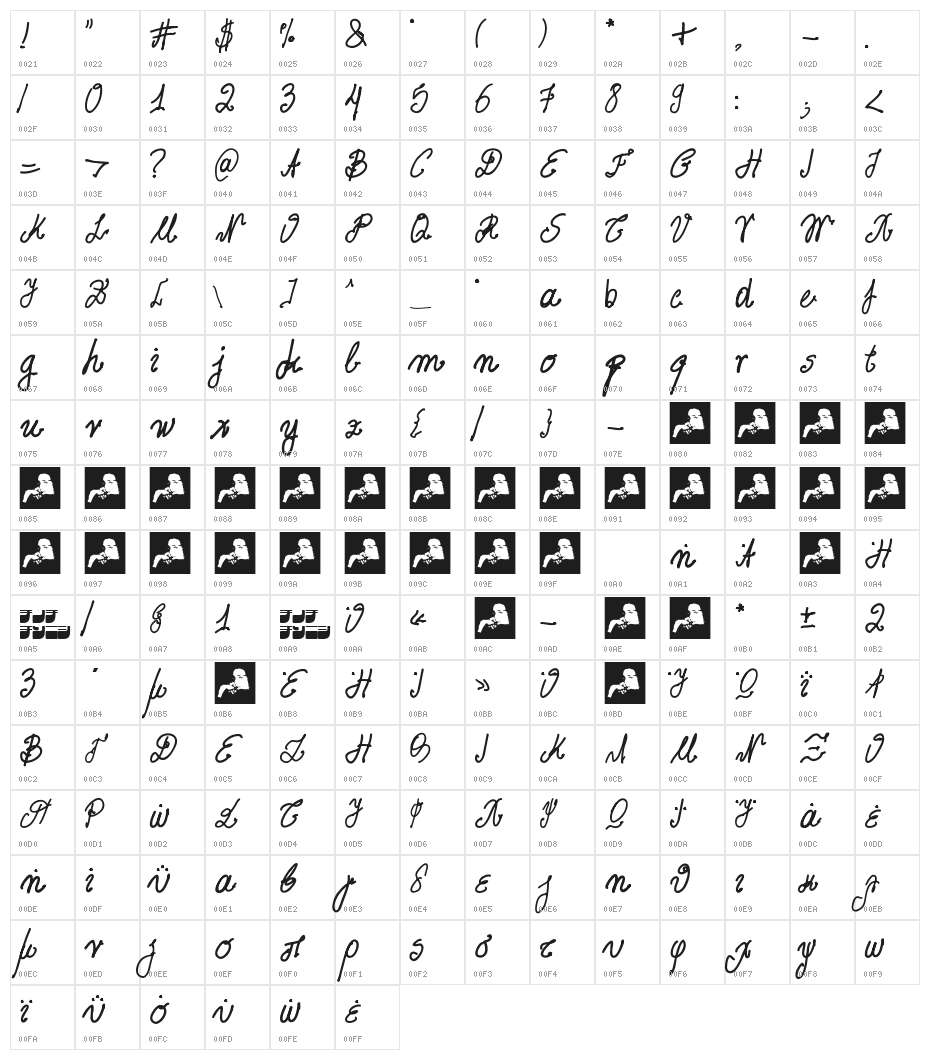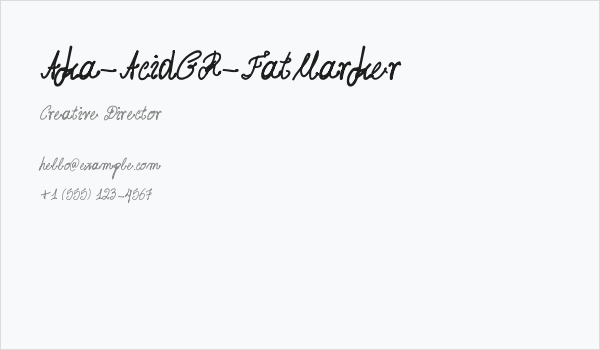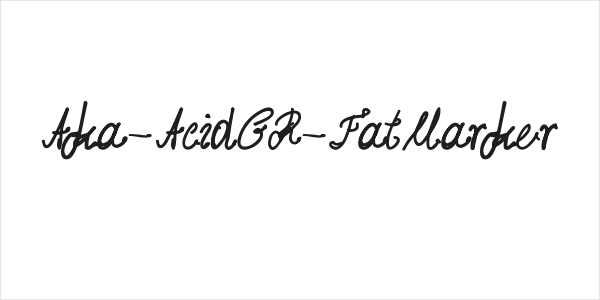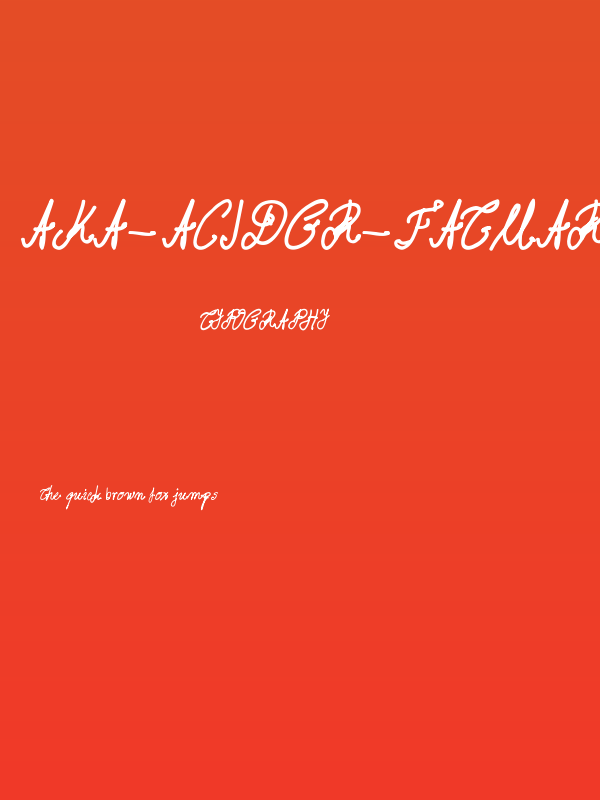
Aka-AcidGR-FatMarker Font
Aka-AcidGR-FatMarker Description
This font features a bold, cursive style with a playful and dynamic appearance. The letters are interconnected, creating a fluid and continuous flow that mimics handwriting. The strokes are thick and rounded, giving the font a substantial and robust feel. It includes both uppercase and lowercase letters, numbers, and a variety of special characters. The overall look is expressive and energetic, making it suitable for creative and informal applications. The font's design suggests a sense of movement and spontaneity, ideal for projects that require a personal touch.
| Proposed Projects | Ideal for greeting cards, invitations, posters, and branding that requires a personal and informal touch. |